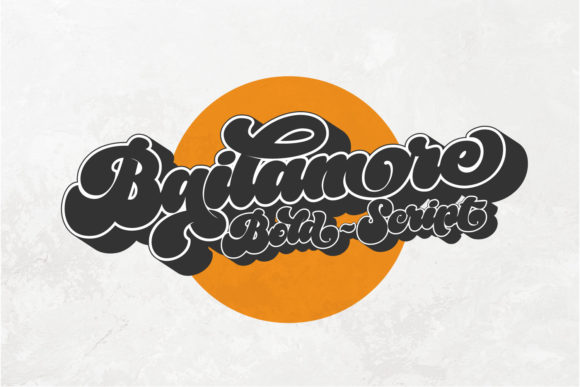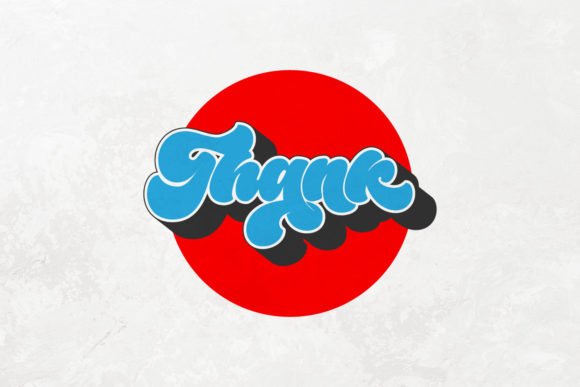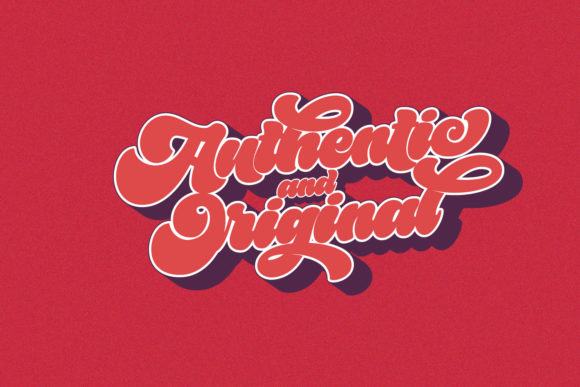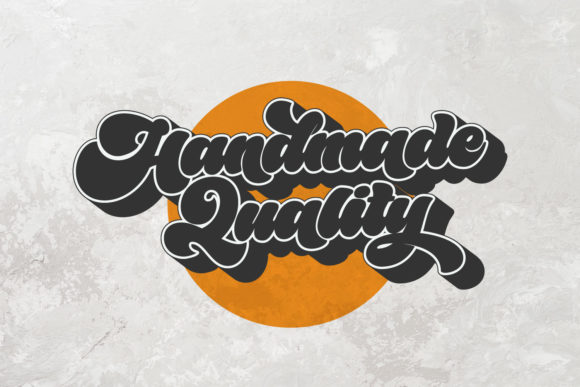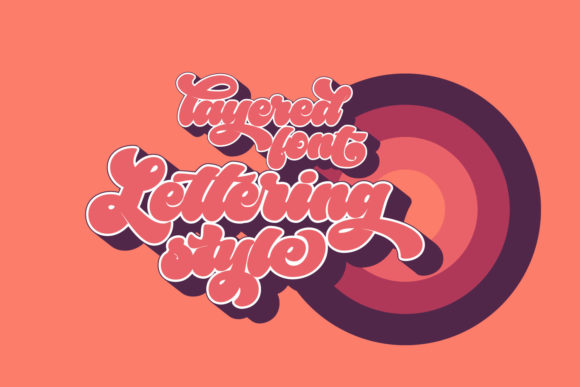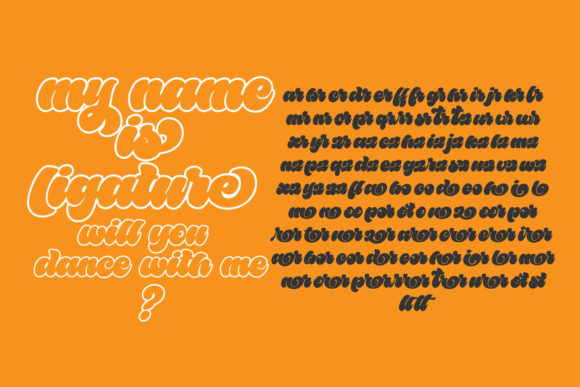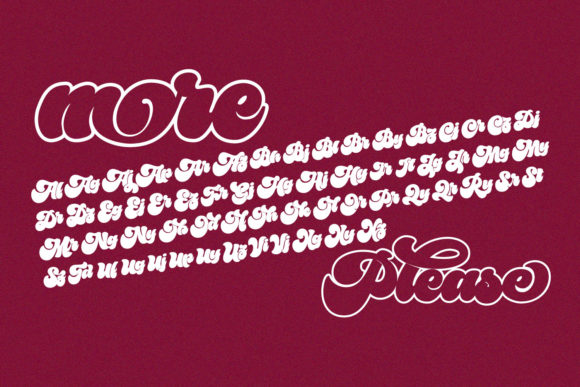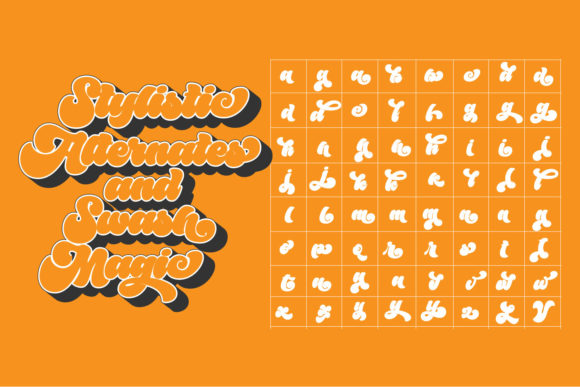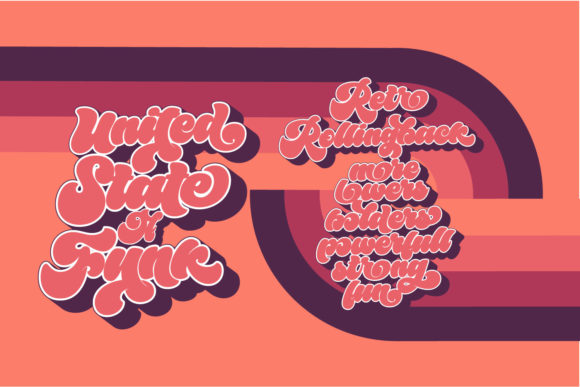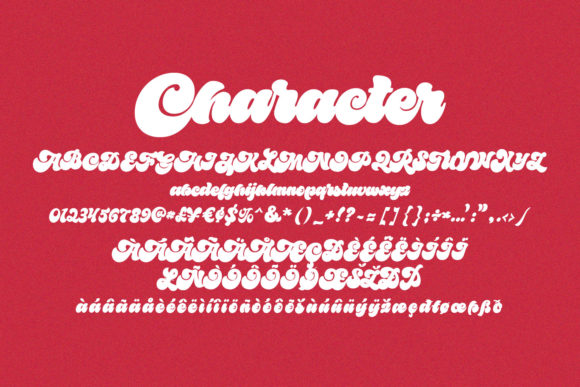
Bailamore Font
About Bailamore Font
Bailamore is a retro style handwritten font. Whether you’re using it for crafting, digital designing, presentations or greeting cards making, Bailamore is perfect!